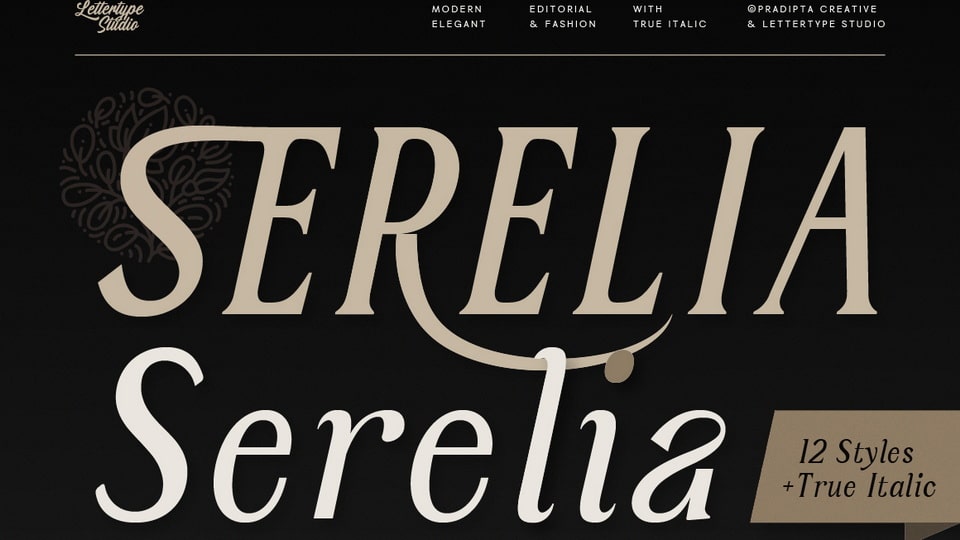
Download Serelia font, a refined editorial serif typeface crafted with graceful contrast, elegant curves, and expressive signature details designed for premium branding.
Designer: Lettertype Studio